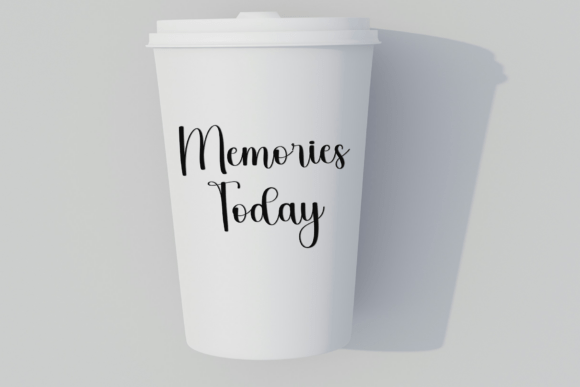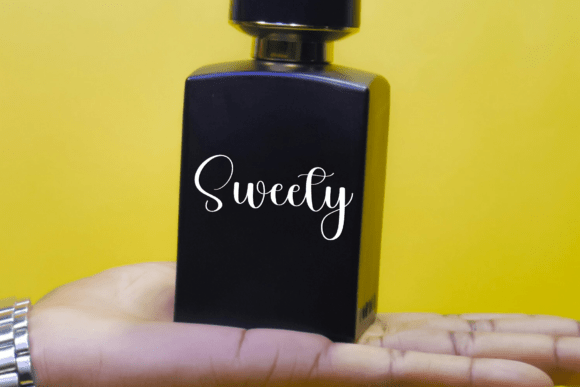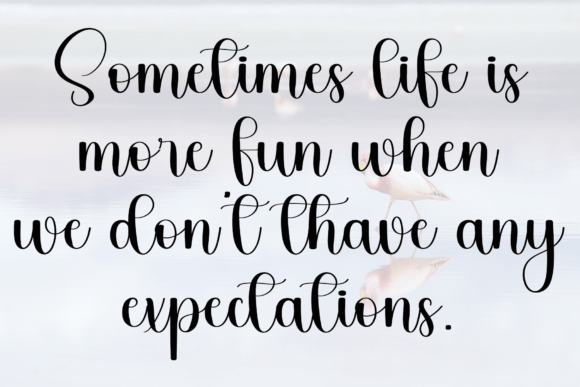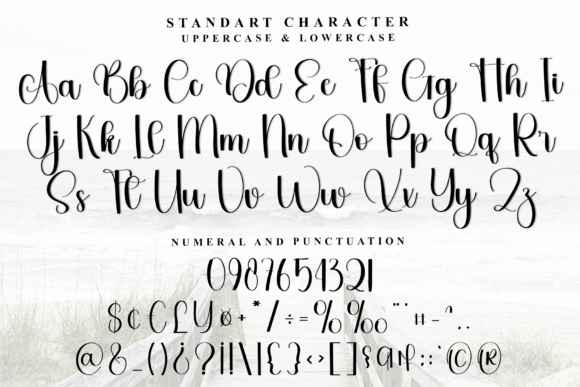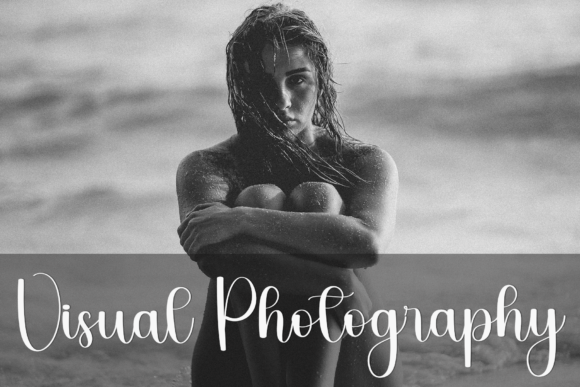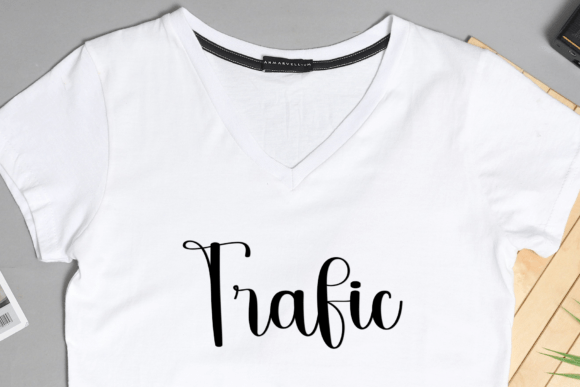
The Designer’s Delight: Uncovering the Beauty of Benefit Font
I’ll never forget the time I was working on a project for a client who wanted a unique, eye-catching font to make their brand stand out. I spent hours scouring the internet for the perfect font, but nothing seemed quite right. That was until I stumbled upon Benefit Font. Its soft, distinctive strokes and special character immediately caught my attention, and I knew I had found the one. In this article, I’ll share my experience with Benefit Font, its features, and how to make the most of it in your designs.
An Honest Review of Benefit Font
- ✨ Unique and eye-catching design
- ✅ Versatile for various design projects, crafts, and creative works
- 🌿 Natural font style that appeals to a wide range of audiences
While Benefit Font is an excellent choice for many designs, there are a few things to keep in mind:
- ⚠️ Some characters may require adjustments for optimal spacing
- 🤔 Limited availability of certain OpenType features in certain applications
A Practical Guide to Using Benefit Font
For more advanced designers, Benefit Font can be used in Adobe Photoshop and Illustrator to take advantage of OpenType features and glyphs:
- Access OpenType features, such as stylistic alternates and glyphs, by going to the “Window” menu and selecting “Typography”
- Experiment with different features and glyphs to add unique touches to your design
Even in Microsoft Word, Benefit Font can be used to add a touch of elegance to your documents:
The Story Behind Benefit Font
Benefit Font was designed with the intention of creating a unique and versatile font that could be used across various design projects. The designer, inspired by the beauty of natural forms, aimed to create a font that would bring a touch of elegance and sophistication to any design. With its distinctive strokes and special character, Benefit Font has become a popular choice among designers and crafters.
| Is Benefit Font suitable for body text? | While Benefit Font is beautiful and eye-catching, it’s best suited for headlines, titles, and short paragraphs. For body text, a clearer font may be more suitable. |